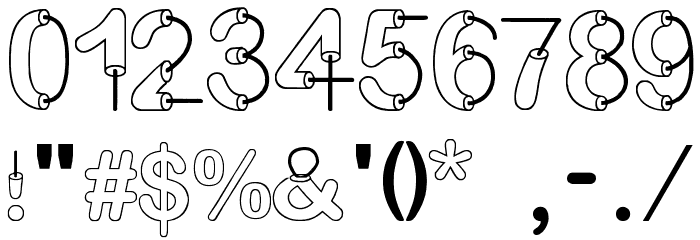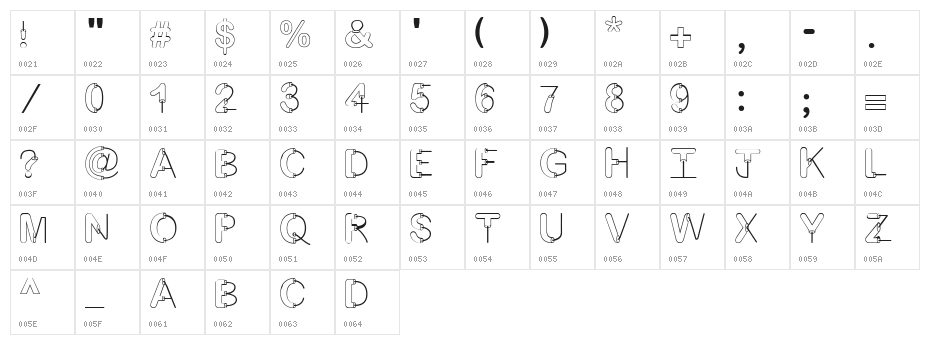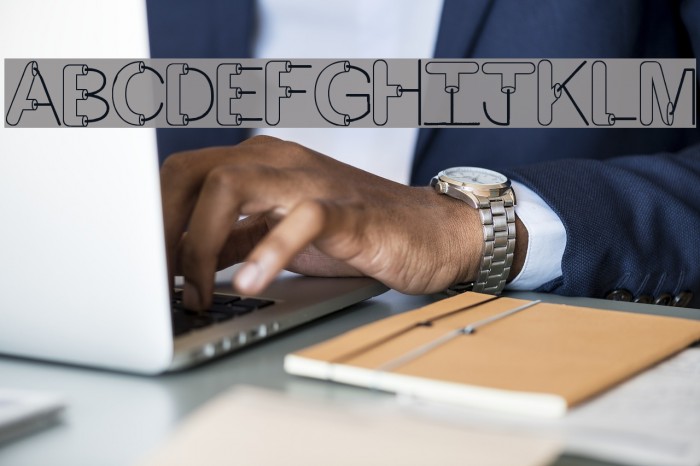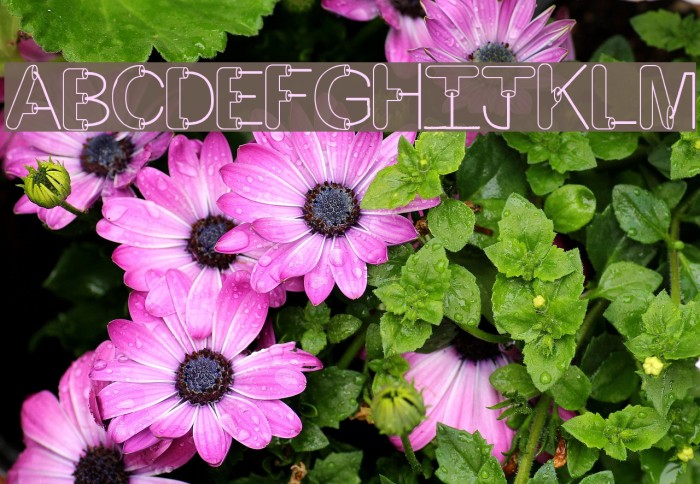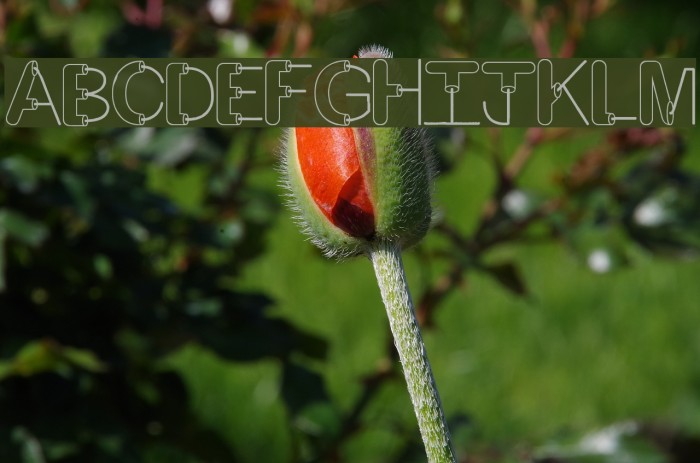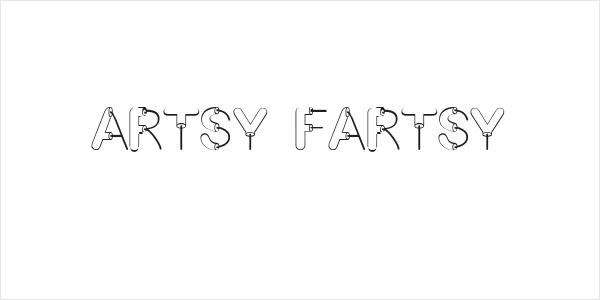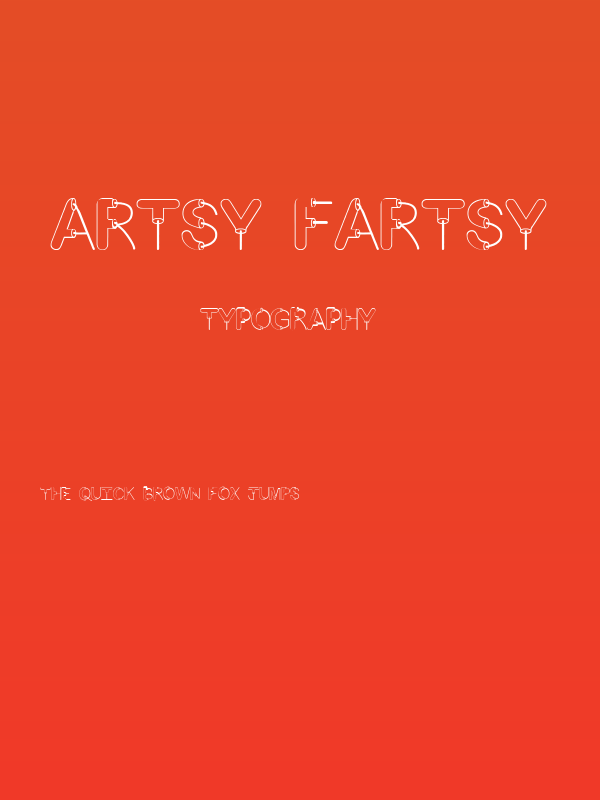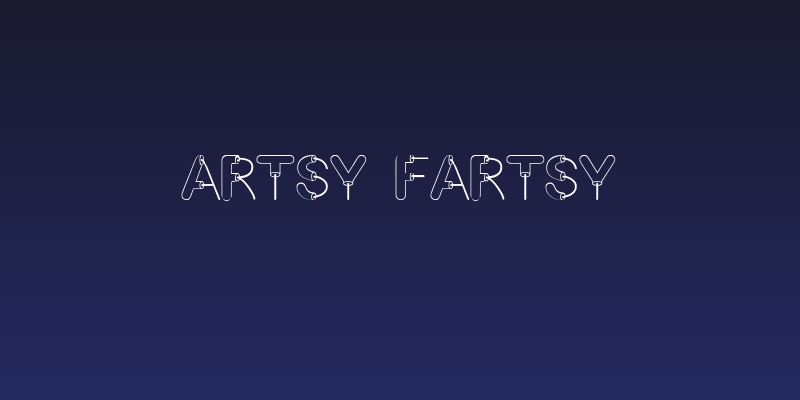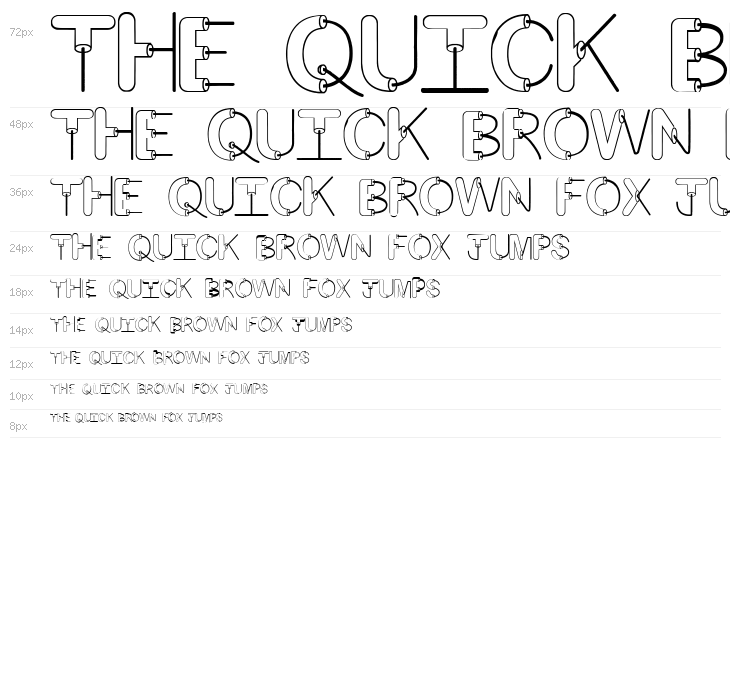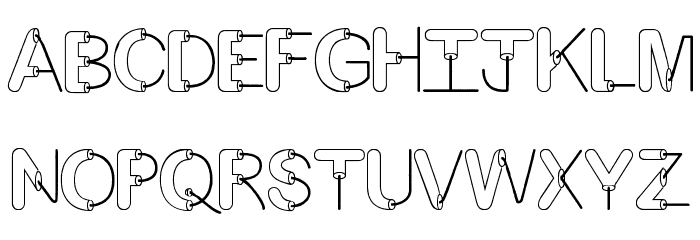
Artsy Fartsy Font
Artsy Fartsy Description
This font features a unique and playful design, incorporating elements that resemble hooks or clips within the structure of each character. The letters are outlined, giving them a hollow appearance, which adds to the whimsical and artistic feel. The uppercase and lowercase letters maintain a consistent style, with rounded edges and a uniform thickness throughout. Numbers and special characters follow the same design principles, ensuring a cohesive look across all glyphs. This font's distinct style makes it stand out, perfect for creative and unconventional projects.